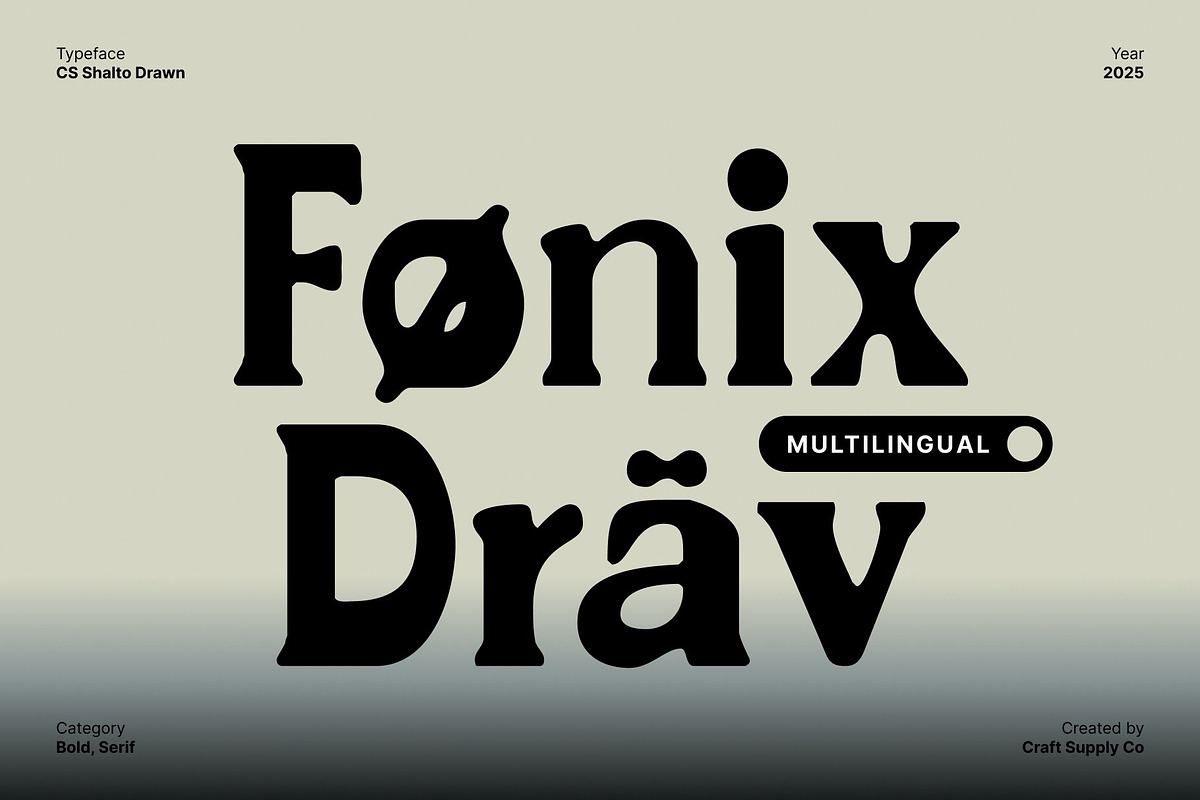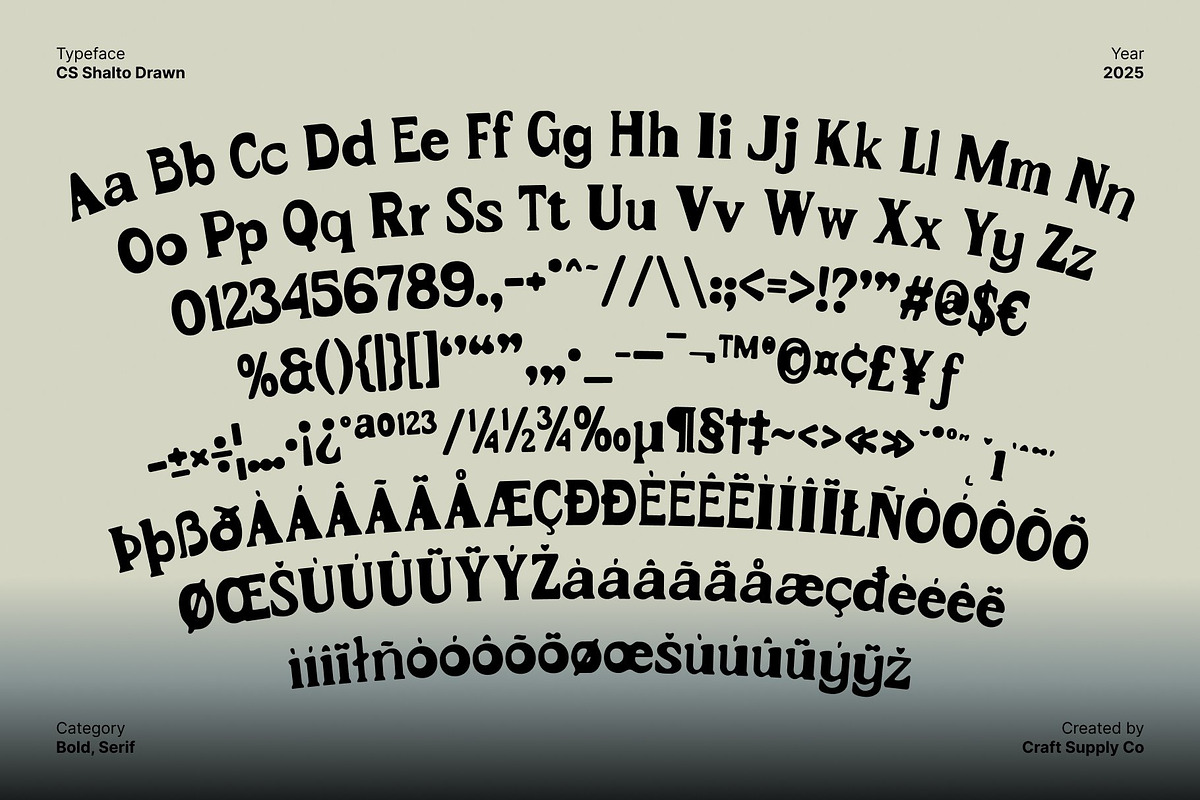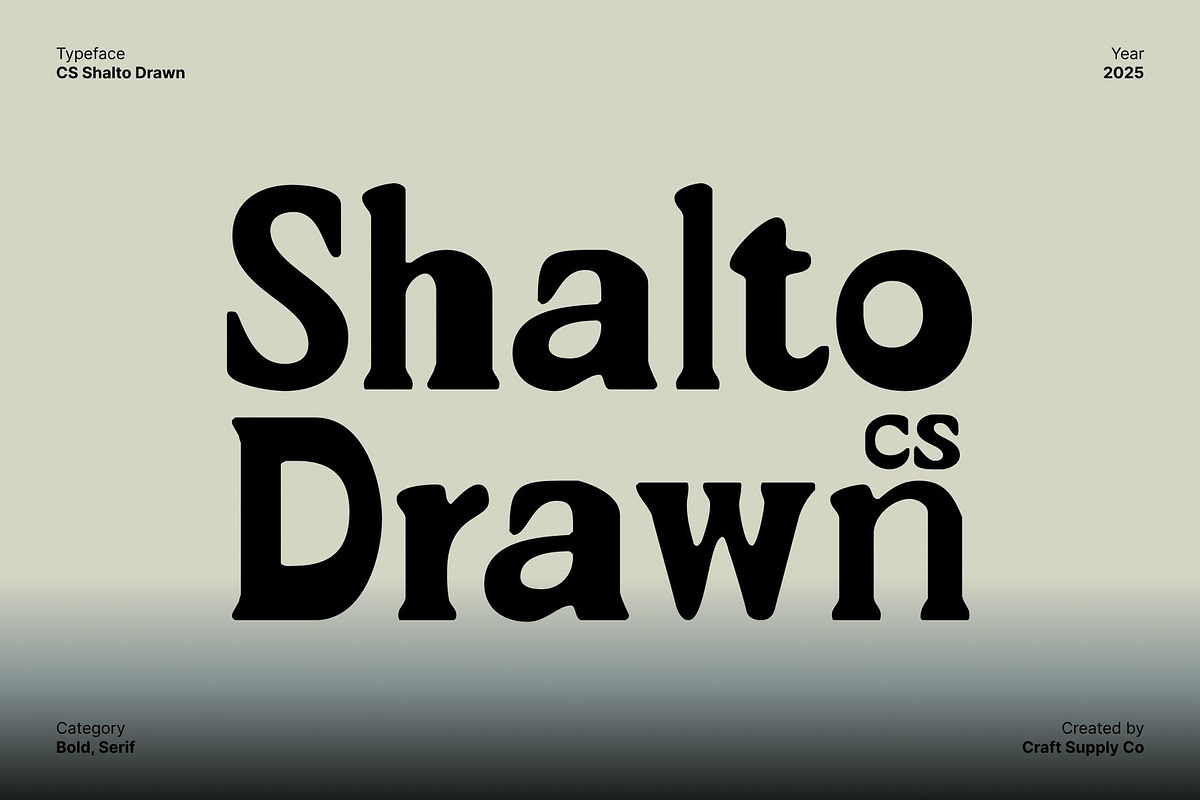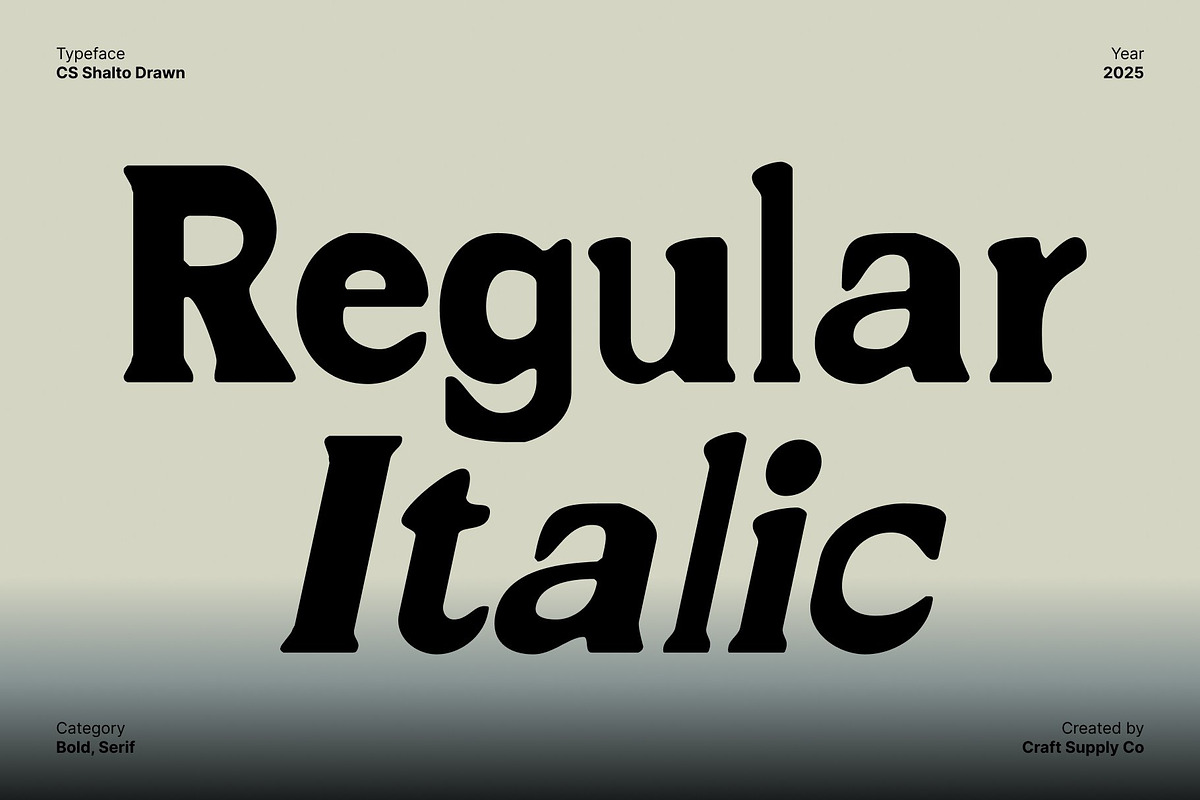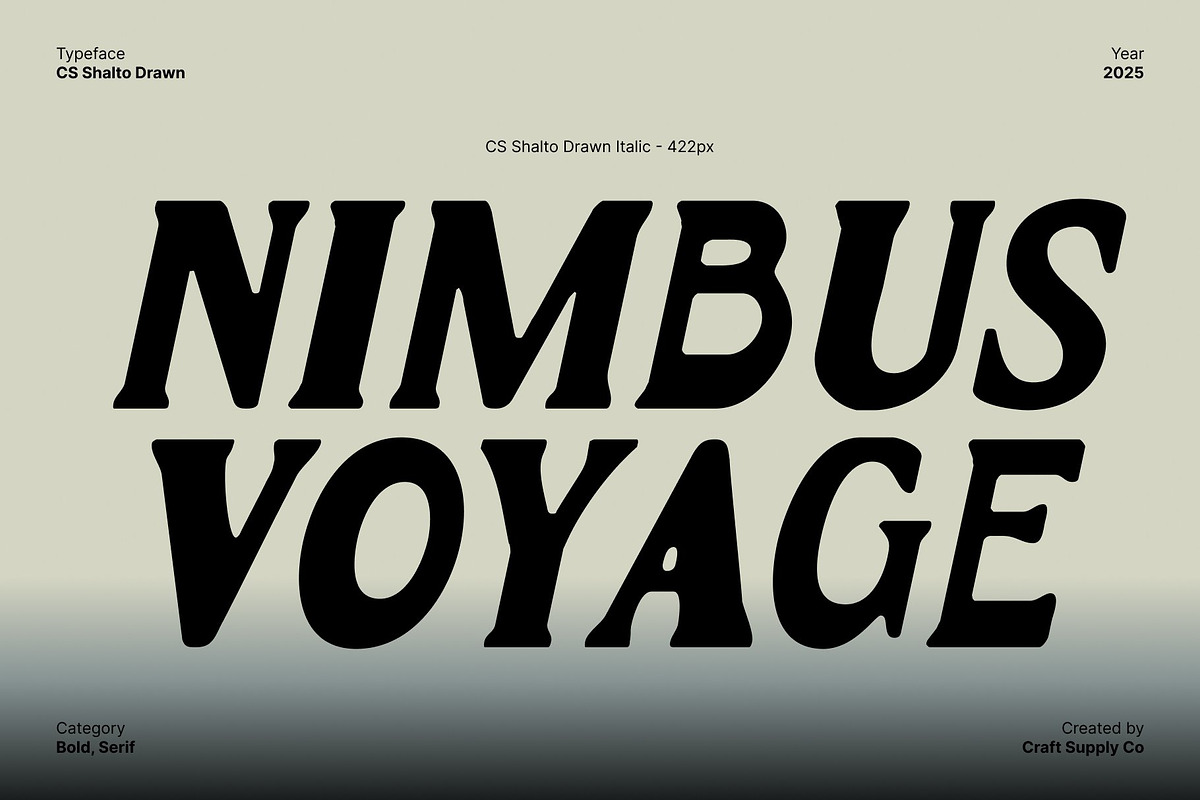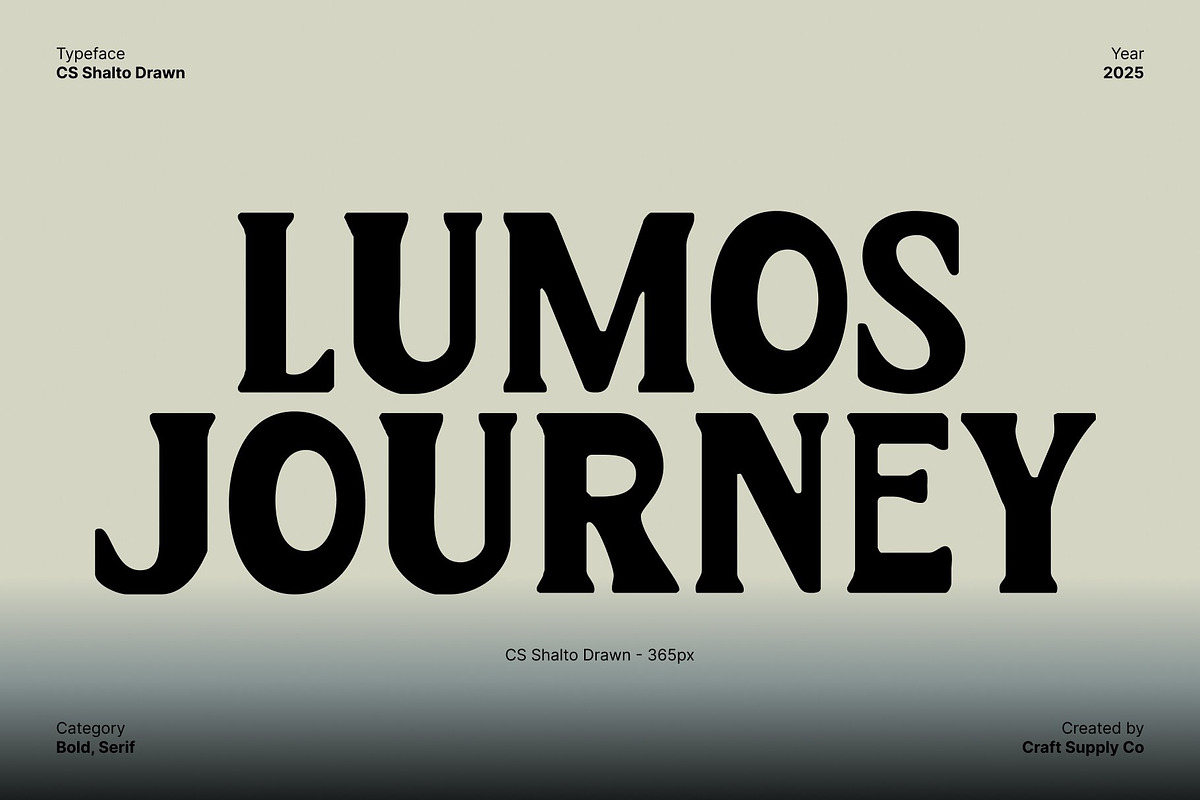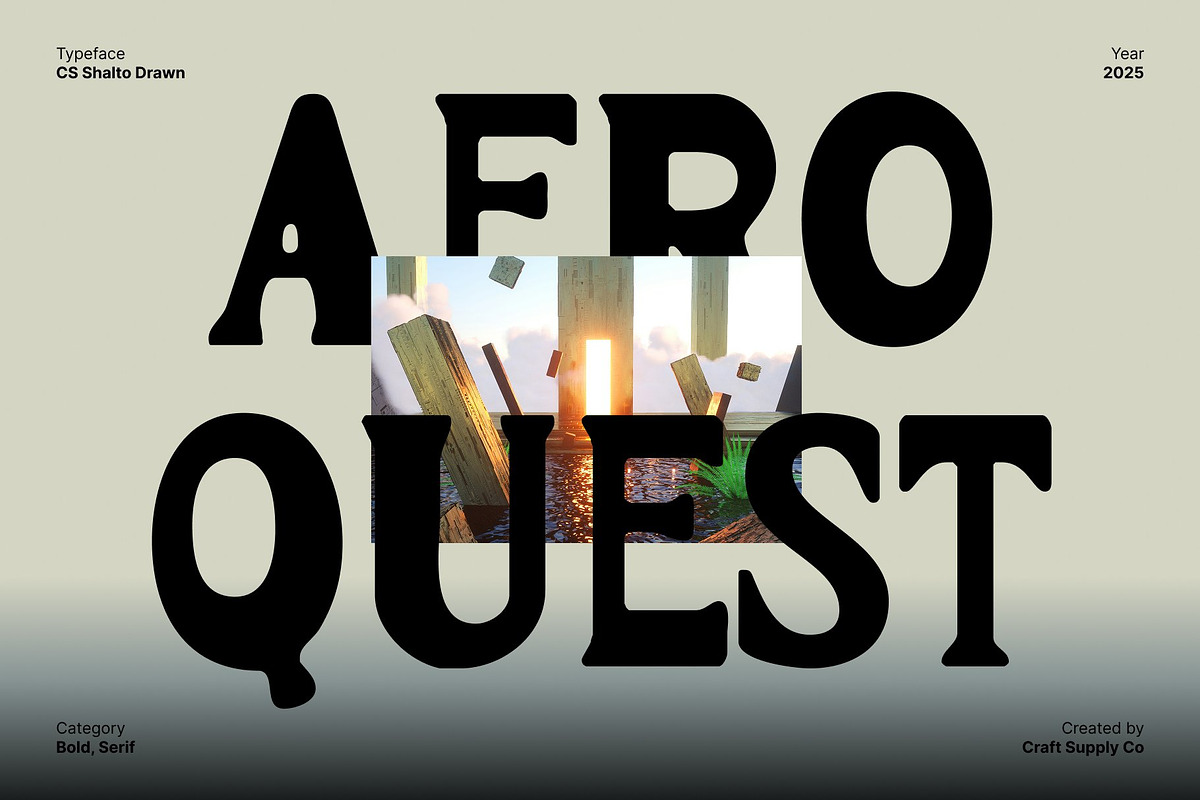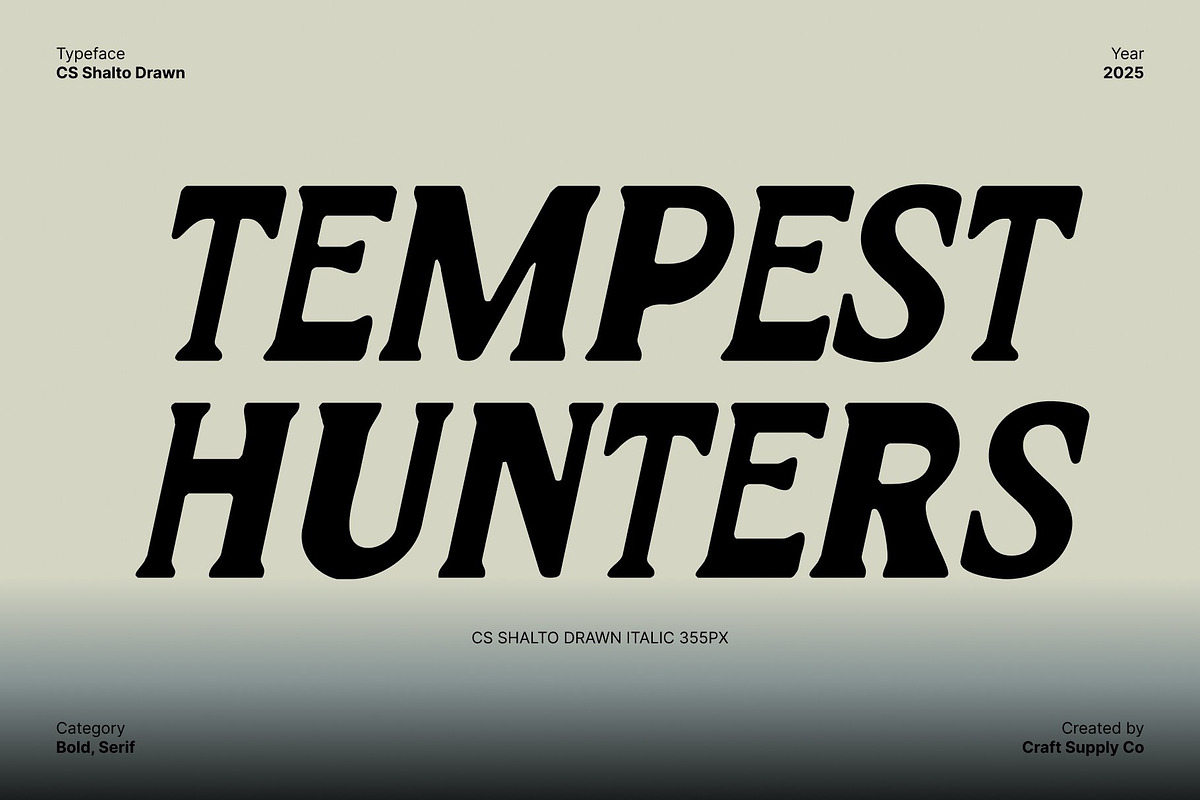
CS Shalto Drawn
CS Shalto Drawn – Retro Serif Font with Playful Vintage Charm
Bold Retro Forms with Nostalgic Personality This font brings timeless charm to modern design through its bold, nostalgic serif style. Inspired by classic retro typography, this font blends sturdy shapes with playful curves, creating a warm and expressive character. Its vintage energy instantly evokes the spirit of old-school posters, signage, and branding from past eras.
Hand-Drawn Texture for Authentic Retro Feel Enhanced by a distinctive drawn effect, features subtle imperfections and textured strokes that elevate its nostalgic appeal. The hand-drawn quality adds a lively, personal touch making each letter feel organic, artistic, and full of character. This imperfect texture enhances its retro attitude and gives your designs a uniquely crafted look.
Perfect for Branding, Posters, and Retro Campaigns This typeface shines in projects that aim to deliver personality and visual impact. Whether you’re designing retro branding, vintage posters, editorial layouts, packaging, or nostalgic ad campaigns, this font adds instant charm. Its bold presence ensures your message stands out while maintaining a warm, inviting vibe.
A Versatile Serif with Playful Vintage Expression This font combines retro serifs, bold shapes, and a textured drawn finish to create a typeface that feels both classic and lively. It’s the perfect choice for designers seeking a nostalgic font that balances personality, charm, and handcrafted appeal ideal for any project that wants a touch of the past with fresh creative energy.